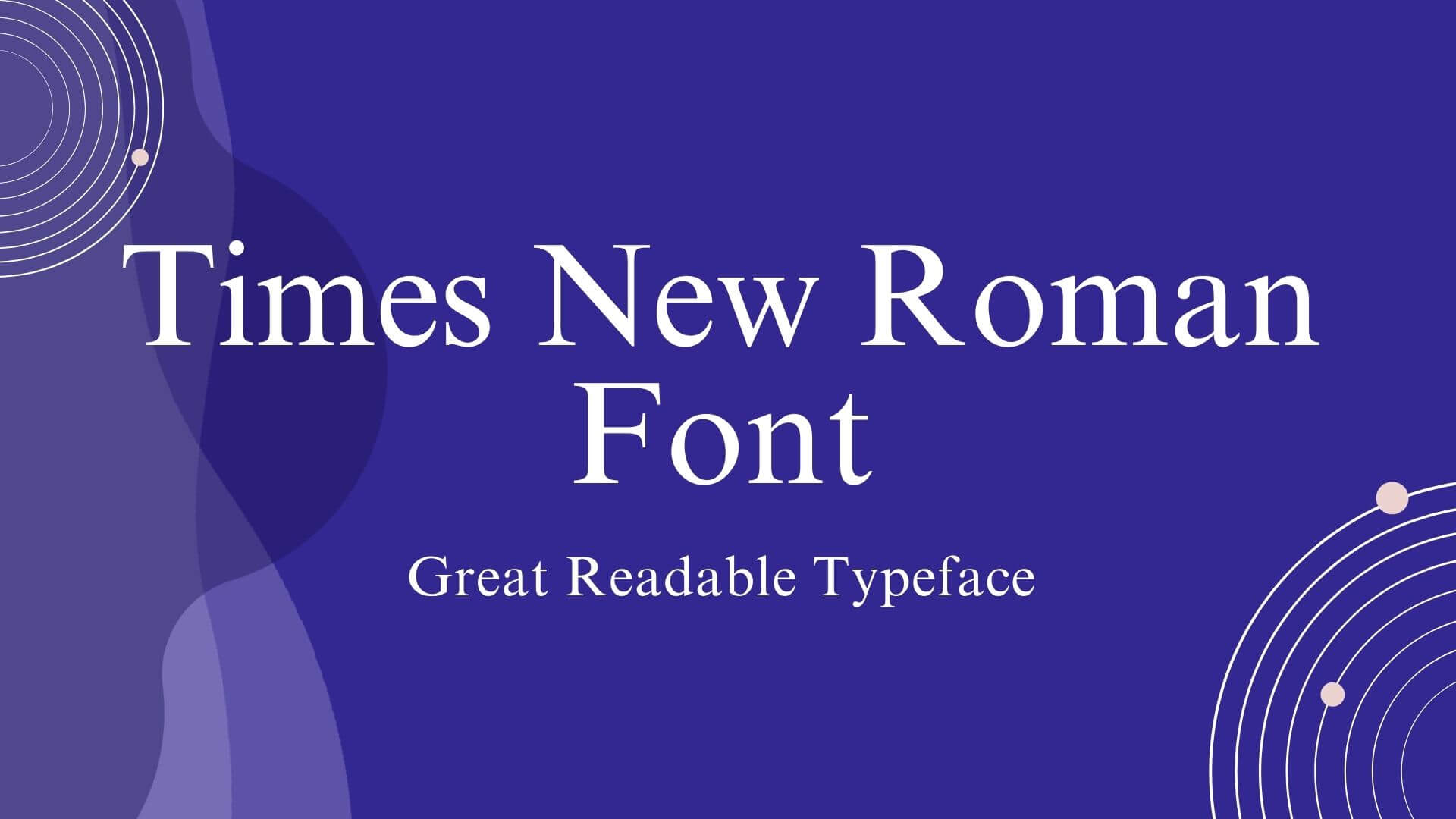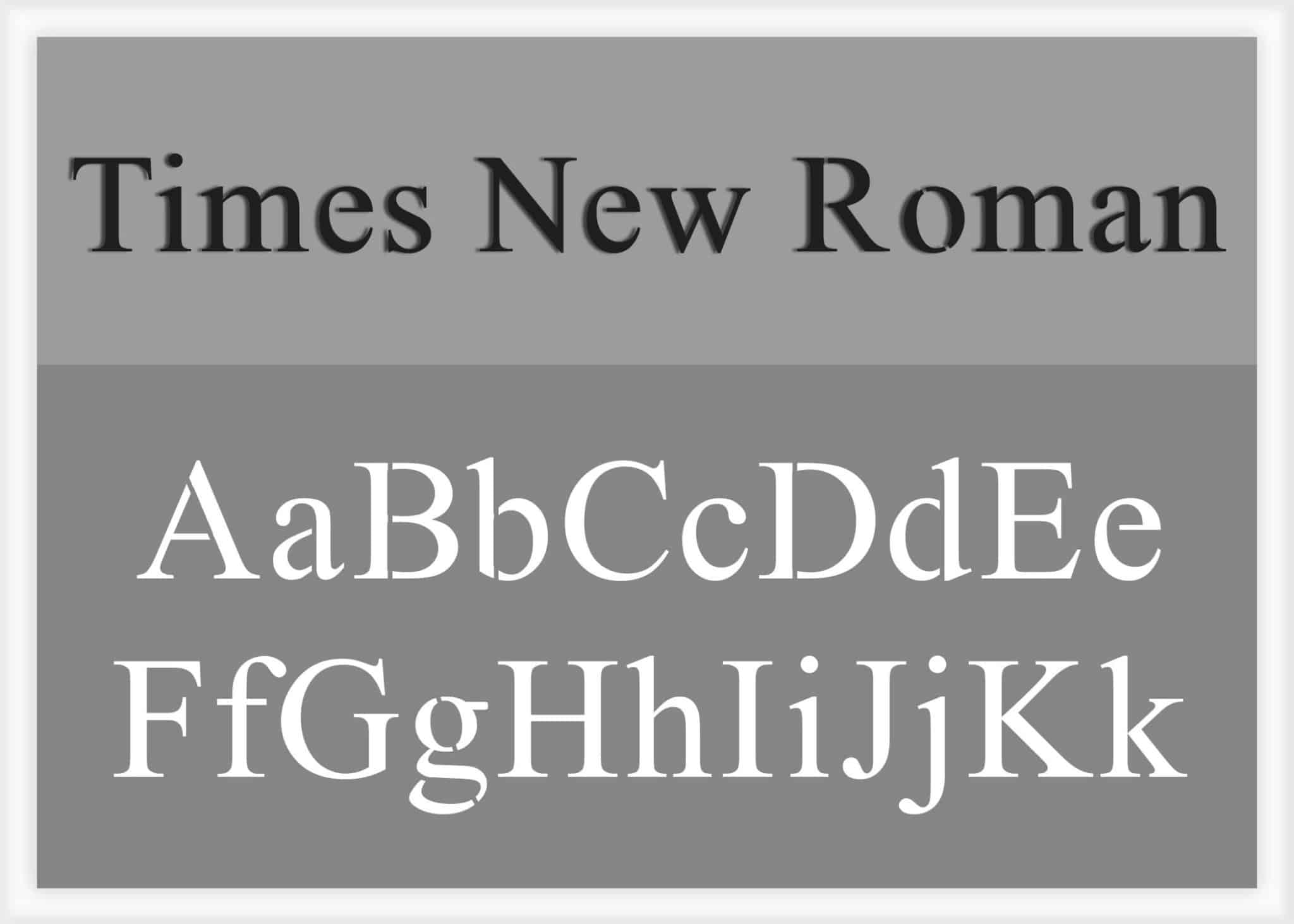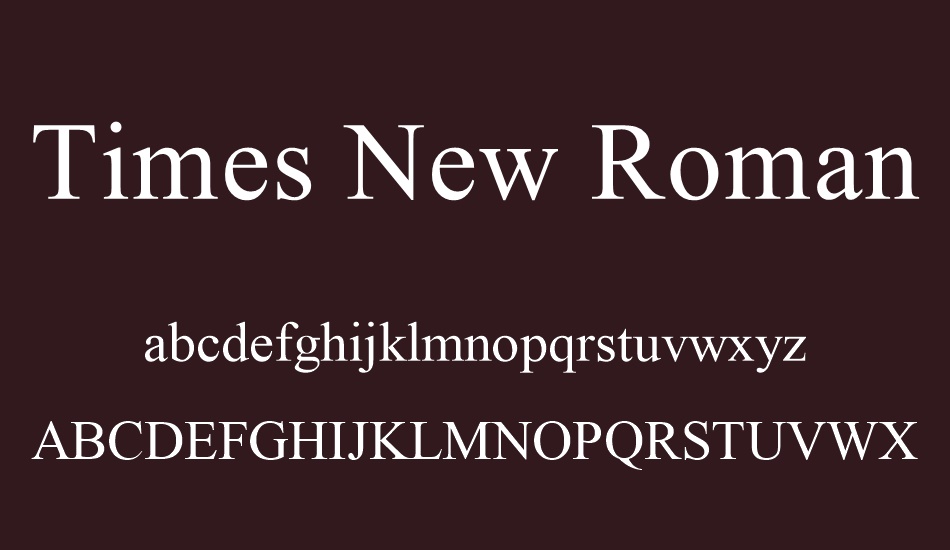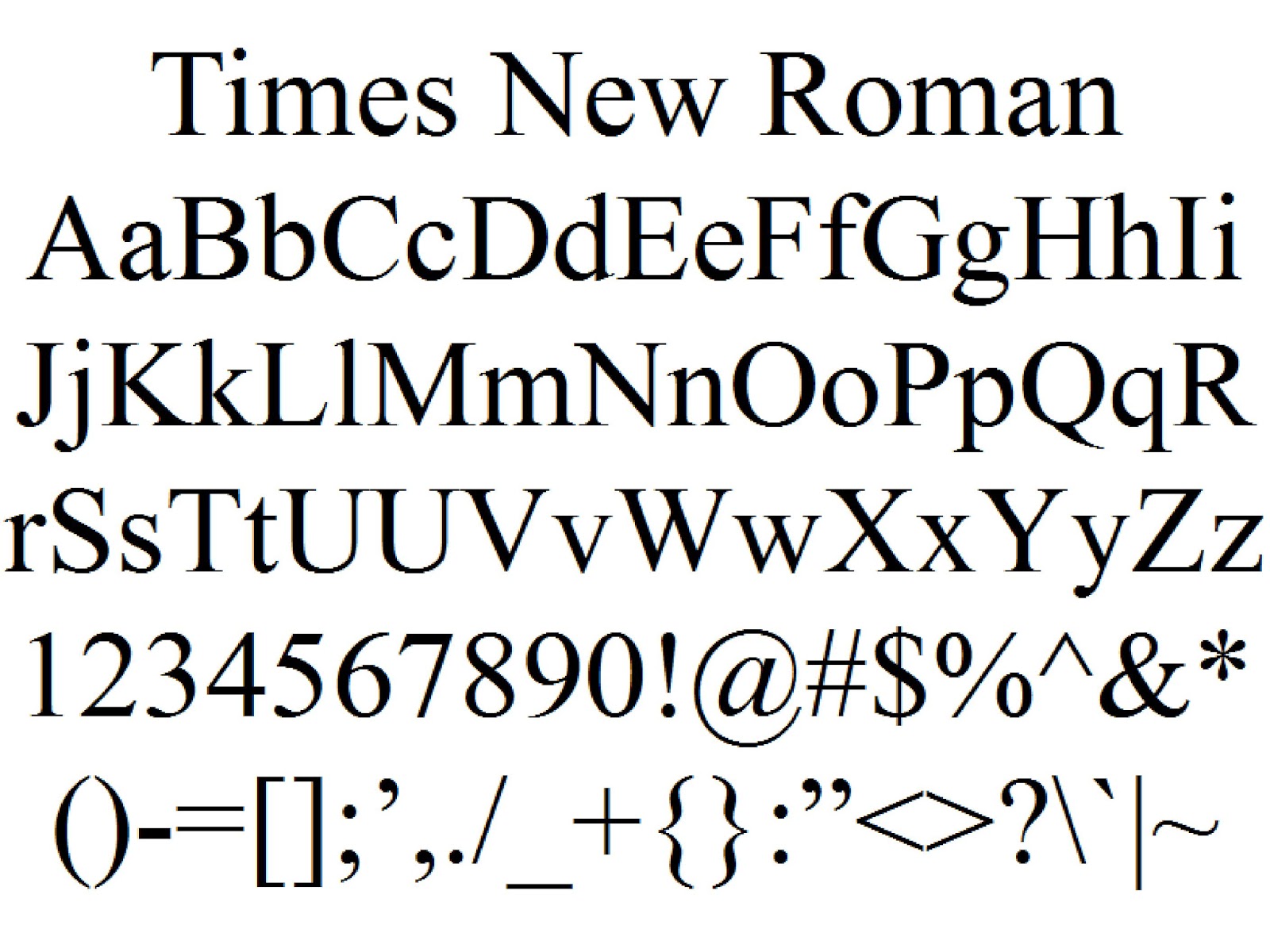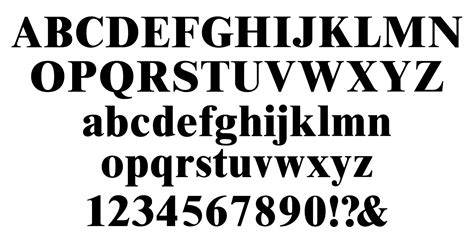
Time New Roman Font
Time New Roman Font - Browse and download 22 free fonts in the times new roman style from fontspace. Times new roman is a classic serif font designed by stanley morison and victor lardent for the times of london in 1931. It is available in 12.
It is available in 12. Times new roman is a classic serif font designed by stanley morison and victor lardent for the times of london in 1931. Browse and download 22 free fonts in the times new roman style from fontspace.
It is available in 12. Browse and download 22 free fonts in the times new roman style from fontspace. Times new roman is a classic serif font designed by stanley morison and victor lardent for the times of london in 1931.